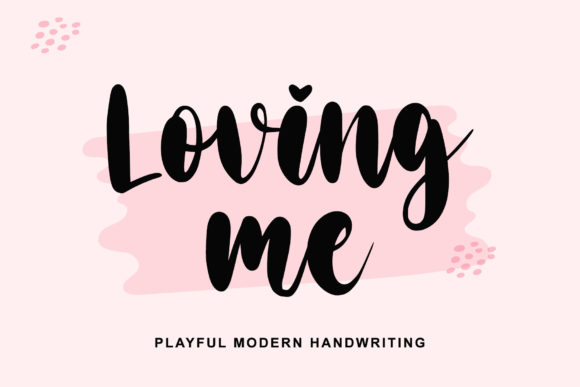
Embrace the Enchanting Beauty of Loving Me Font – A Seductive Script Crafted to Awaken Your Creativity
Immerse yourself in the captivating world of Loving Me Font, a captivating script font that exudes elegance, grace, and a touch of modern allure. This ethereal font, meticulously crafted by the talented thomasaradea, is designed to ignite your creativity and bring a touch of magic to your digital masterpieces.
As you delve into the depths of Loving Me Font's enchanting characters, you'll discover a symphony of curves and flourishes that dance across the page like delicate brushstrokes. Each letter is a testament to the font's meticulous design, featuring subtle variations and intricate details that add depth and dimension to your creations.
Step into a realm of endless possibilities as you explore the versatility of Loving Me Font. Whether you're designing eye-catching logos, crafting heartfelt invitations, or creating personalized artwork, this font will elevate your projects to new heights. Let your imagination soar as you unlock the true potential of this remarkable font.
With Loving Me Font, you'll discover a font that seamlessly blends timeless elegance with a contemporary edge. Its graceful lines and sweeping curves evoke a sense of nostalgia, while its modern aesthetics ensure that your designs remain fresh and relevant. Experience the joy of creating designs that transcend time and trends with this exceptional font.
Unleash Your Creativity with Loving Me Font – The Perfect Choice for Cricut Projects
For those seeking the ultimate font companion for their Cricut projects, Loving Me Font stands as the perfect choice. Its effortless flow and elegant curves make it ideal for creating stunning decals, heartwarming cards, and personalized home décor. Imagine transforming your living space into a haven of beauty, adorned with intricate designs brought to life by the magic of Loving Me Font.
With Loving Me Font, you'll discover a font that truly captures the essence of romance and joy. Its playful spirit adds a touch of whimsy to any project, while its sophisticated charm ensures that your designs exude an air of timeless elegance. Whether you're creating personalized gifts for loved ones or crafting beautiful artwork for your home, Loving Me Font will be your steadfast companion, helping you express your creativity in captivating ways.
As you embark on your creative journey with Loving Me Font, you'll discover a world of possibilities waiting to be explored. Indulge in the font's versatility, unleashing your imagination to create designs that are uniquely yours. Let Loving Me Font be your muse, guiding you towards remarkable creations that leave a lasting impression wherever they go.